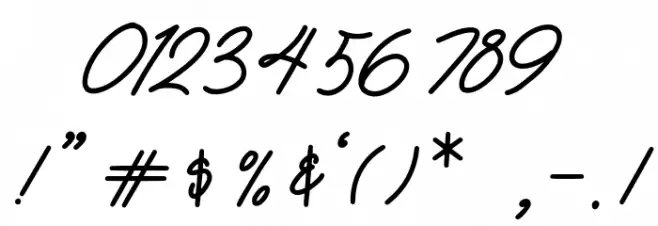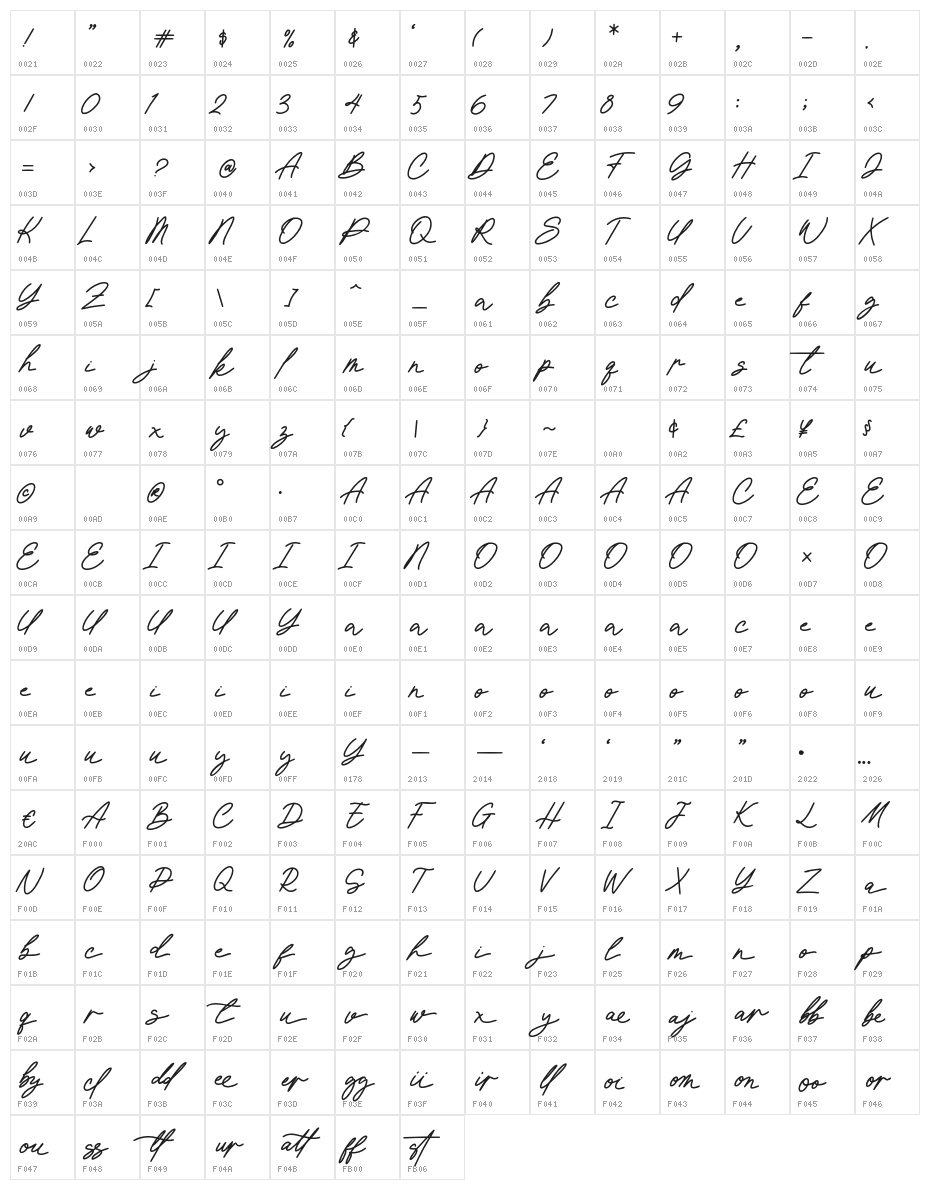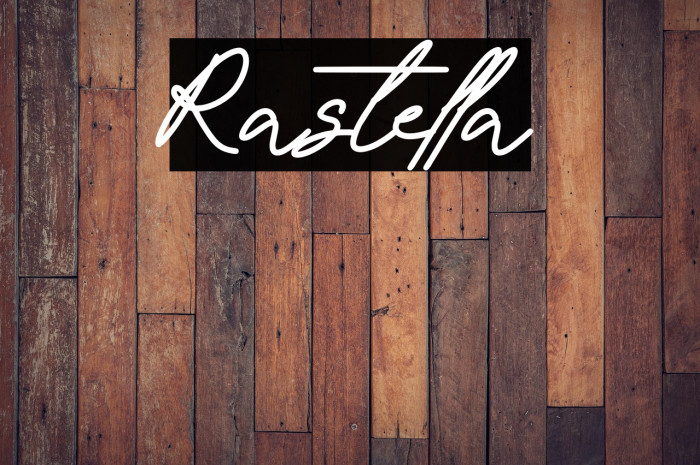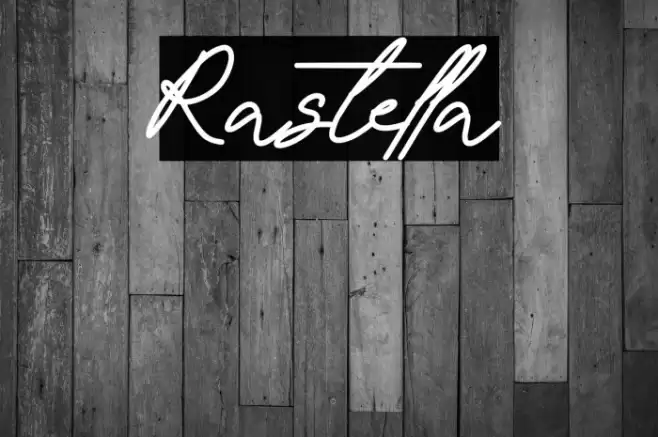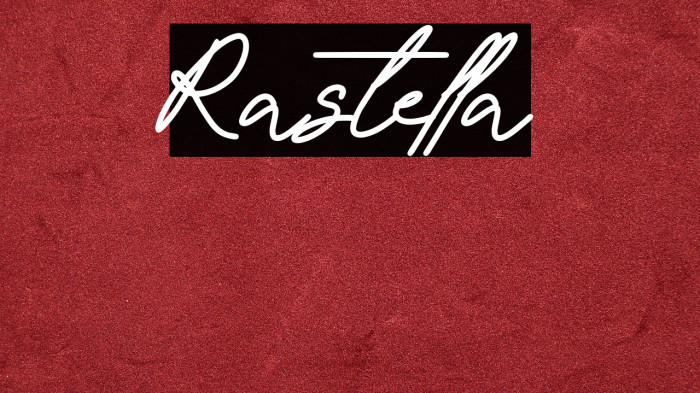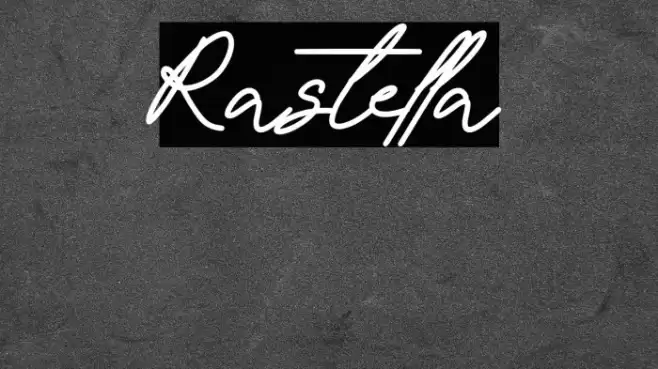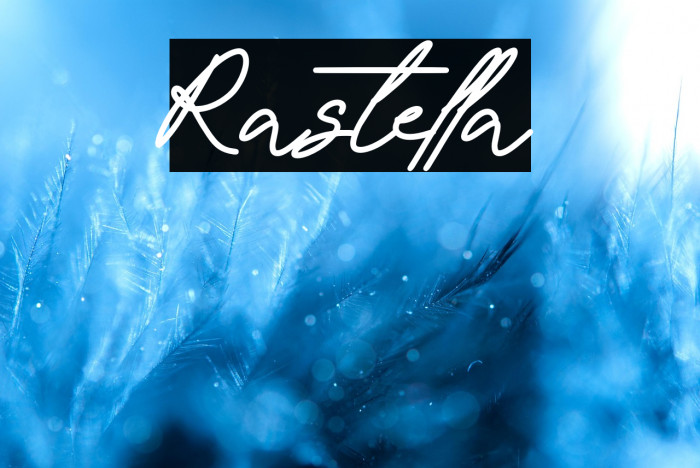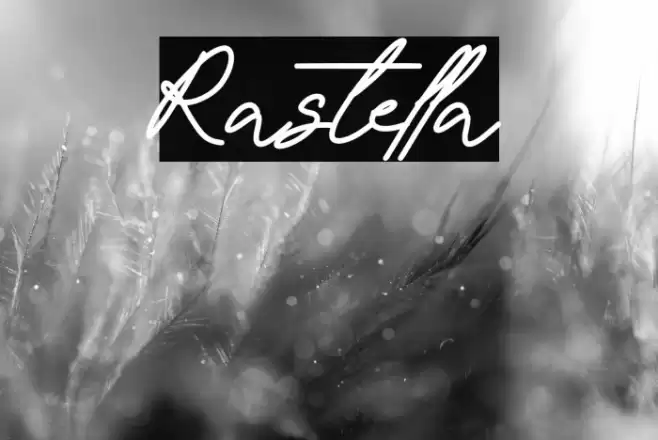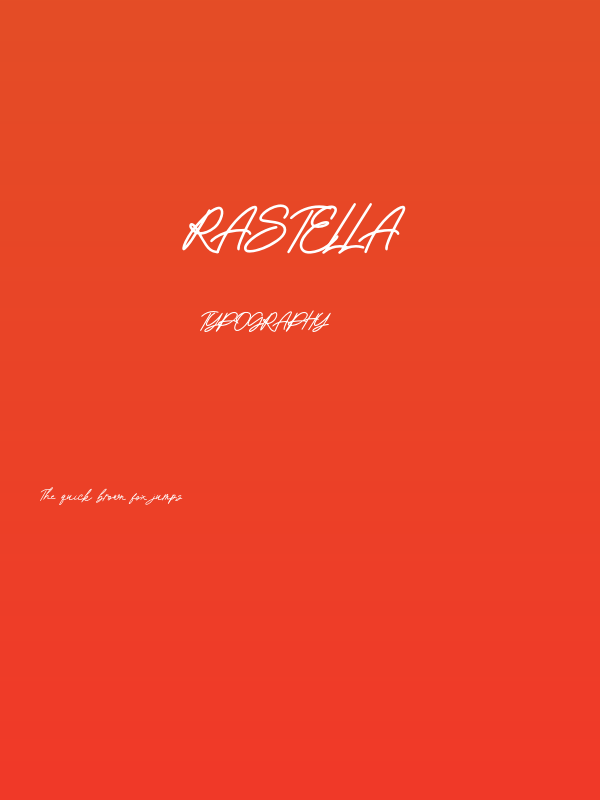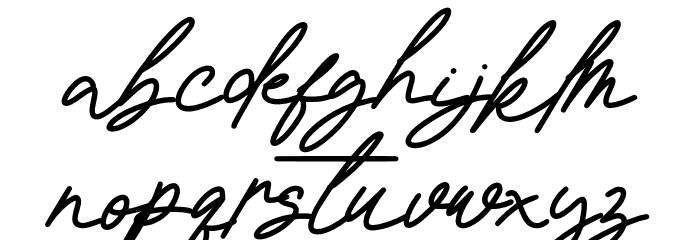
Rastella Font
Rastella Description
This font exudes a fluid and elegant handwritten style, characterized by its cursive script that mimics natural handwriting. The letters are interconnected with smooth, flowing lines, creating a sense of continuity and grace. The uppercase letters are bold and prominent, while the lowercase letters maintain a consistent flow, enhancing readability. Numbers and special characters are crafted with the same attention to detail, ensuring a cohesive look across all elements. The overall appearance is both sophisticated and approachable, making it suitable for a variety of creative applications.
| Proposed Projects | Ideal for wedding invitations, personal branding, greeting cards, and elegant packaging designs. |